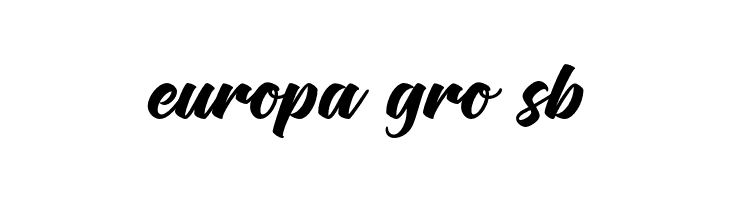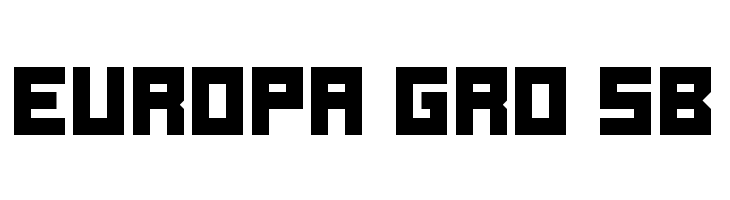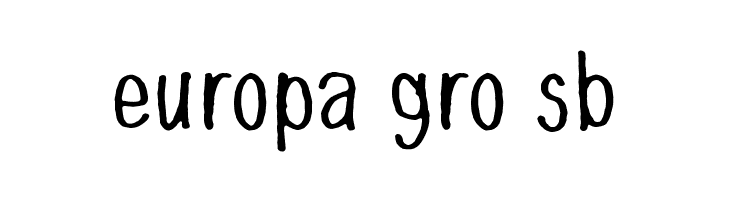
A collection of hunting-themed illustrations replacing traditional characters.
A decorative font with Thanksgiving-themed illustrations.
A playful font with letters inside hand trucks, suggesting movement.
A bold, heart-shaped decorative font with a dripping effect.
A bold, geometric font with a modern, digital aesthetic.
A playful, handwritten font with an informal and approachable style.
A playful, hand-drawn font with bold, rounded strokes and a whimsical charm.